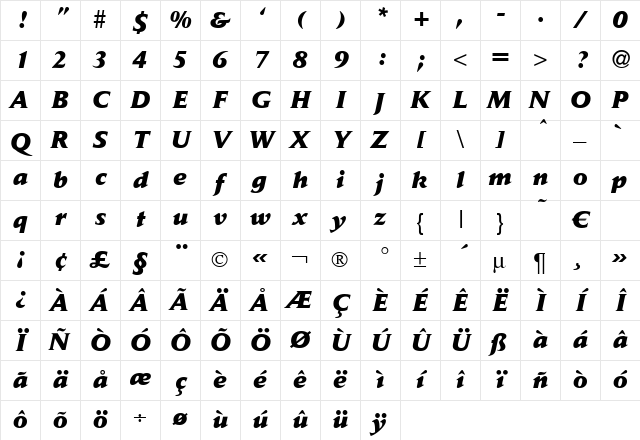
DaitonaBlackDB BoldItalic
Complete DaitonaBlackDB BoldItalic glyph index. Displaying only characters natively supported by DaitonaBlackDB BoldItalic font.
Design Context for DaitonaBlackDB
DaitonaBlackDB is a composed and adaptable typeface that performs quietly and consistently across a wide range of design contexts. The slanted form adds forward momentum and visual energy. Its bold stroke weight gives it real presence on the page.
Pro Tip: Use DaitonaBlackDB for emphasis, pull quotes, and subheadings where its slanted energy can add rhythm to the layout.